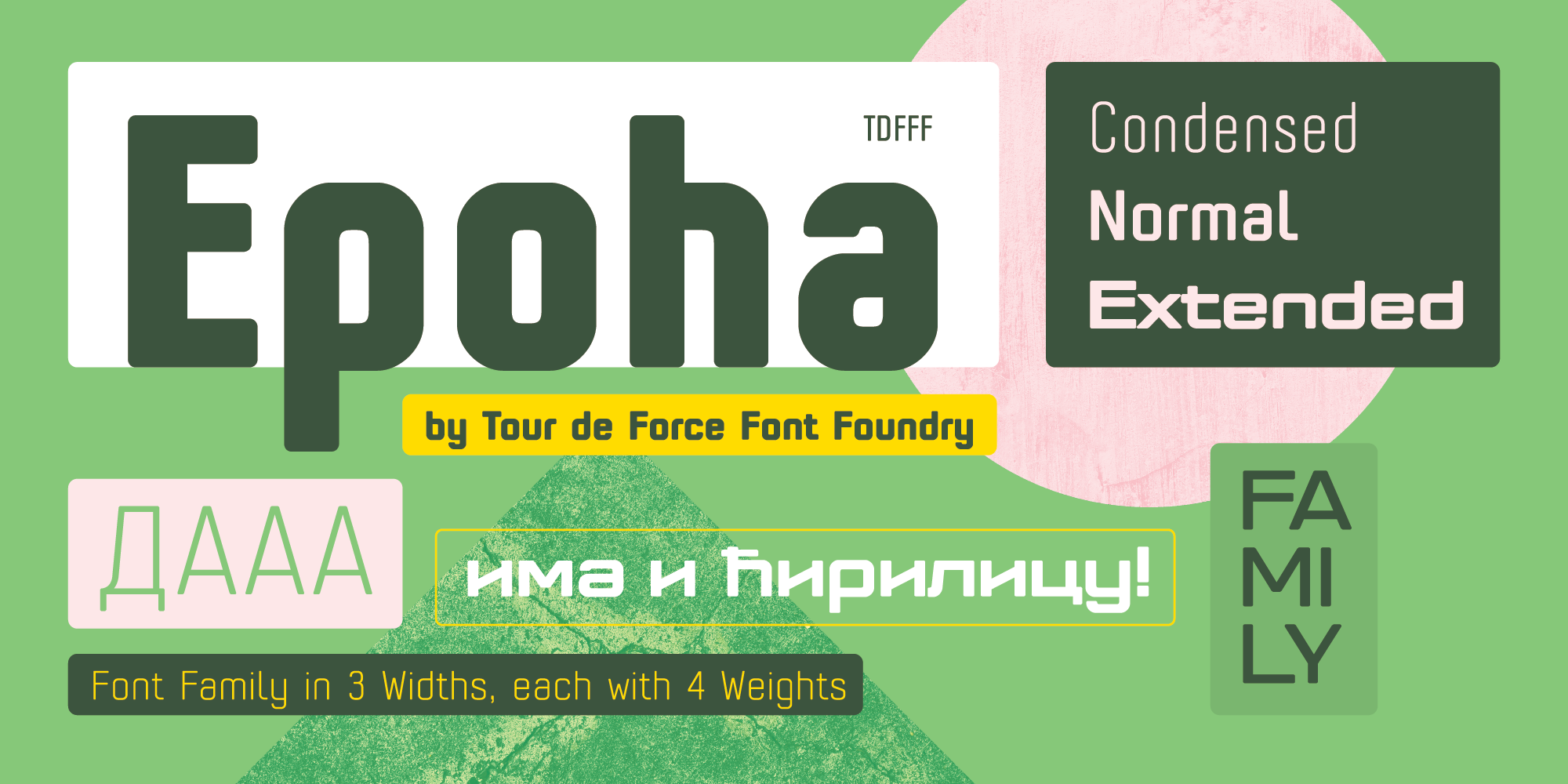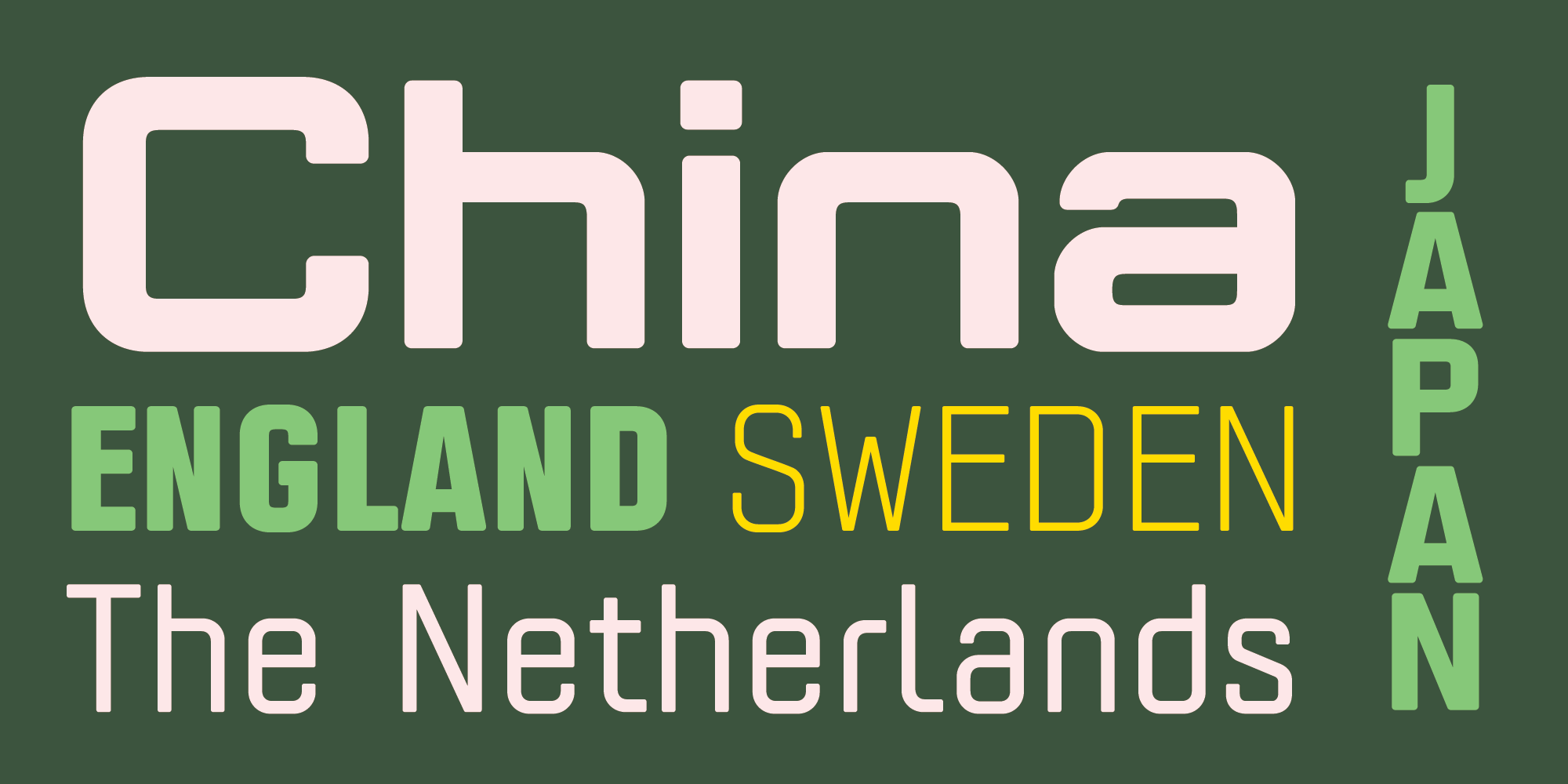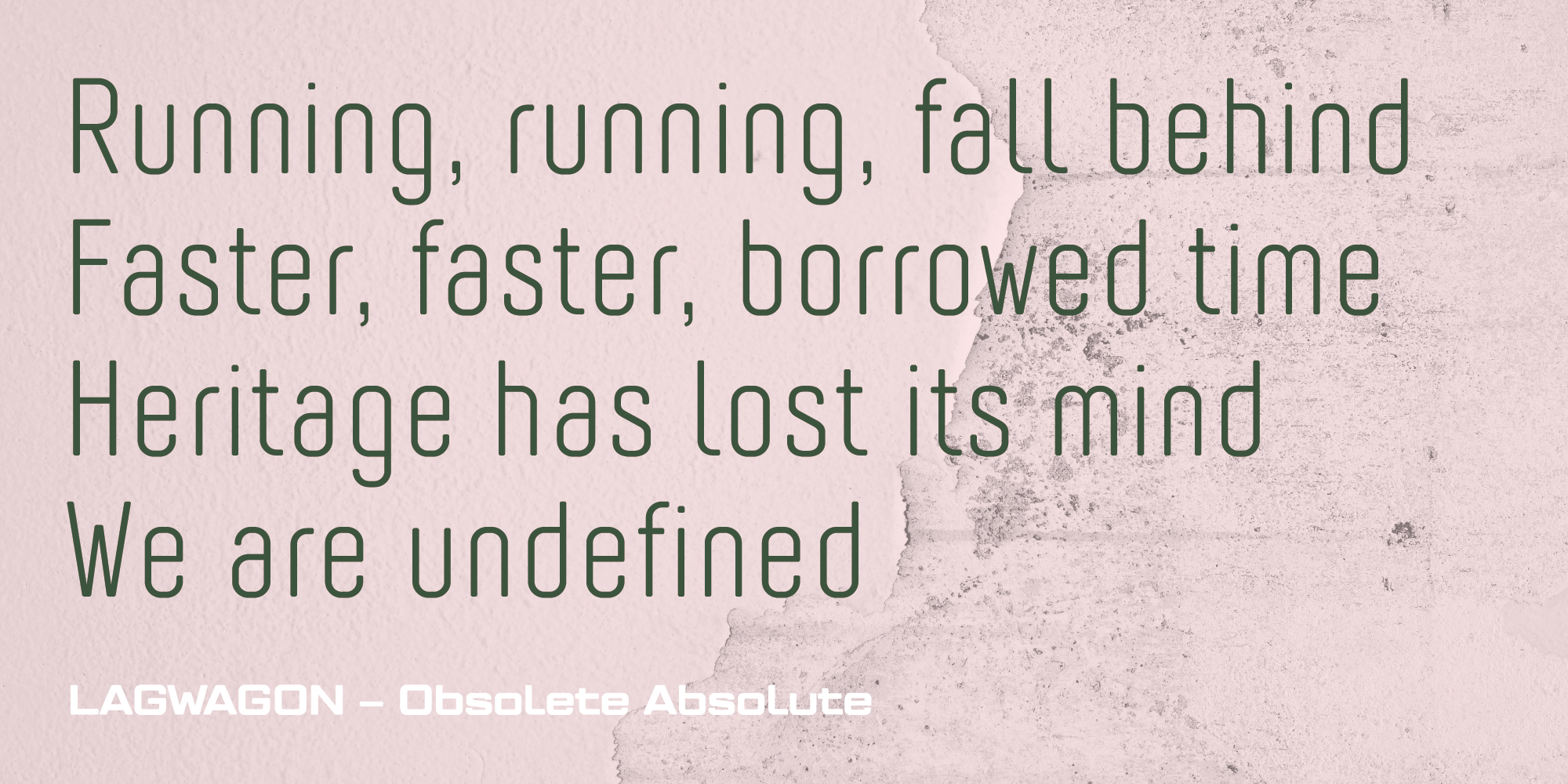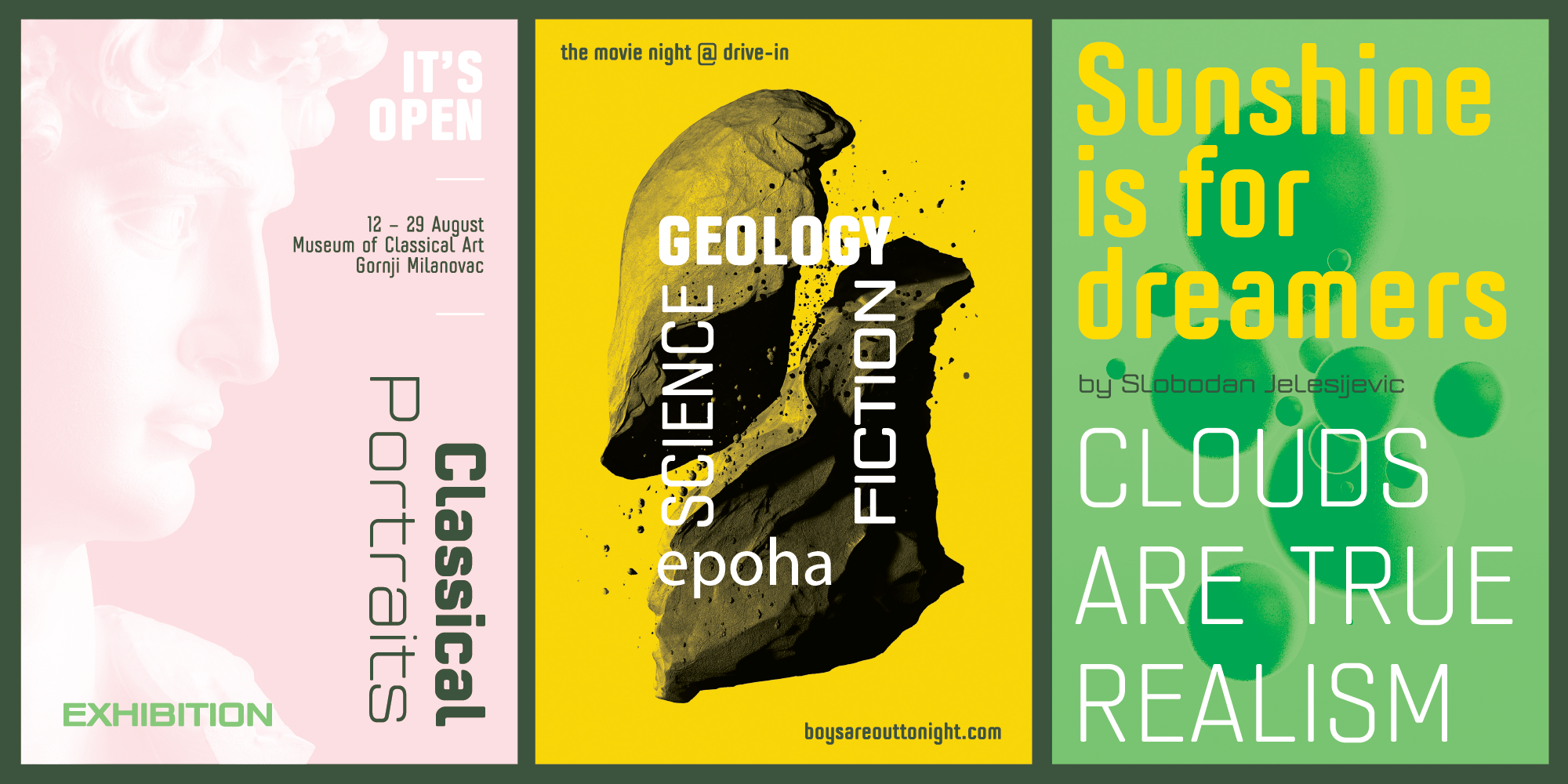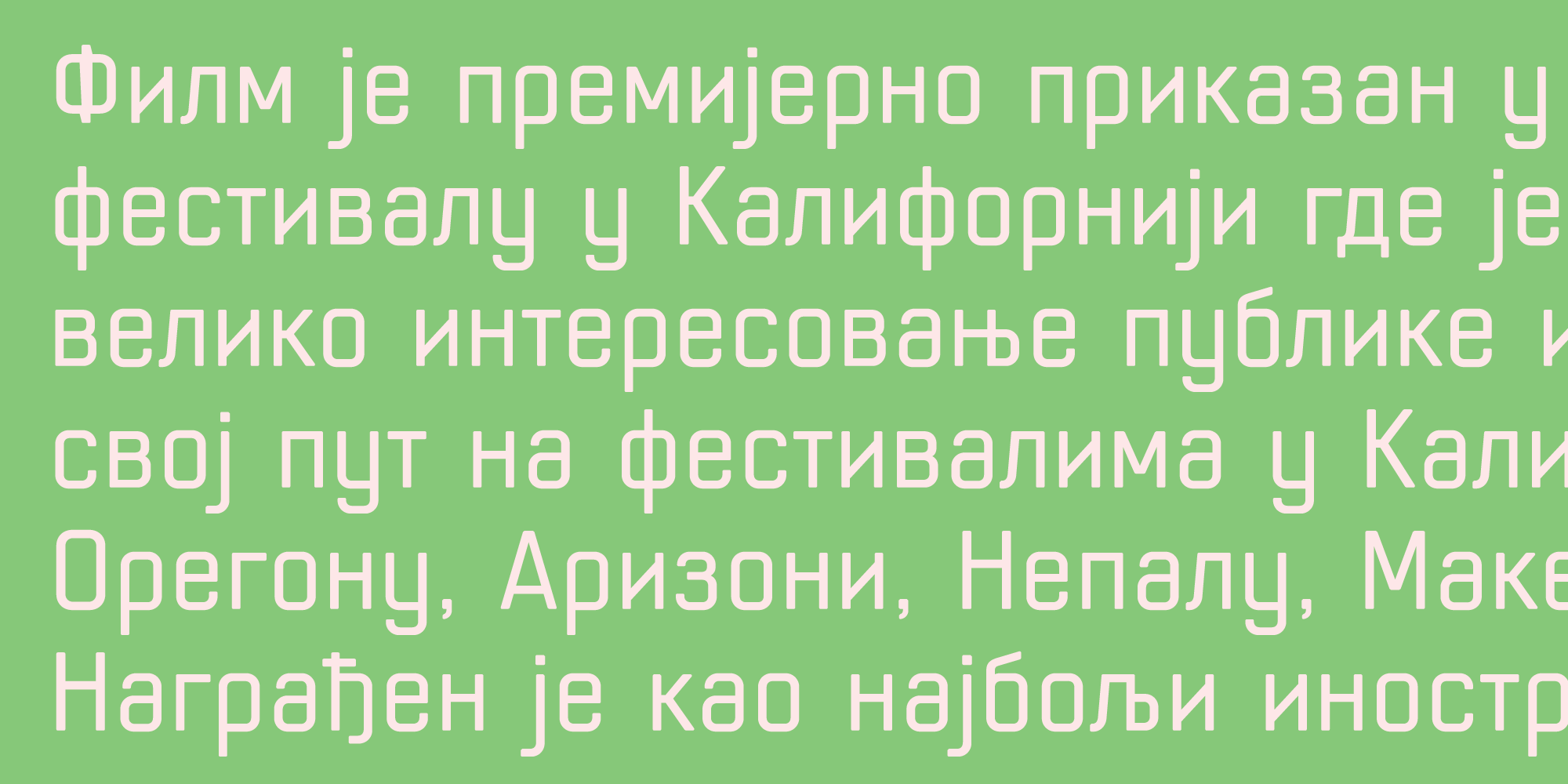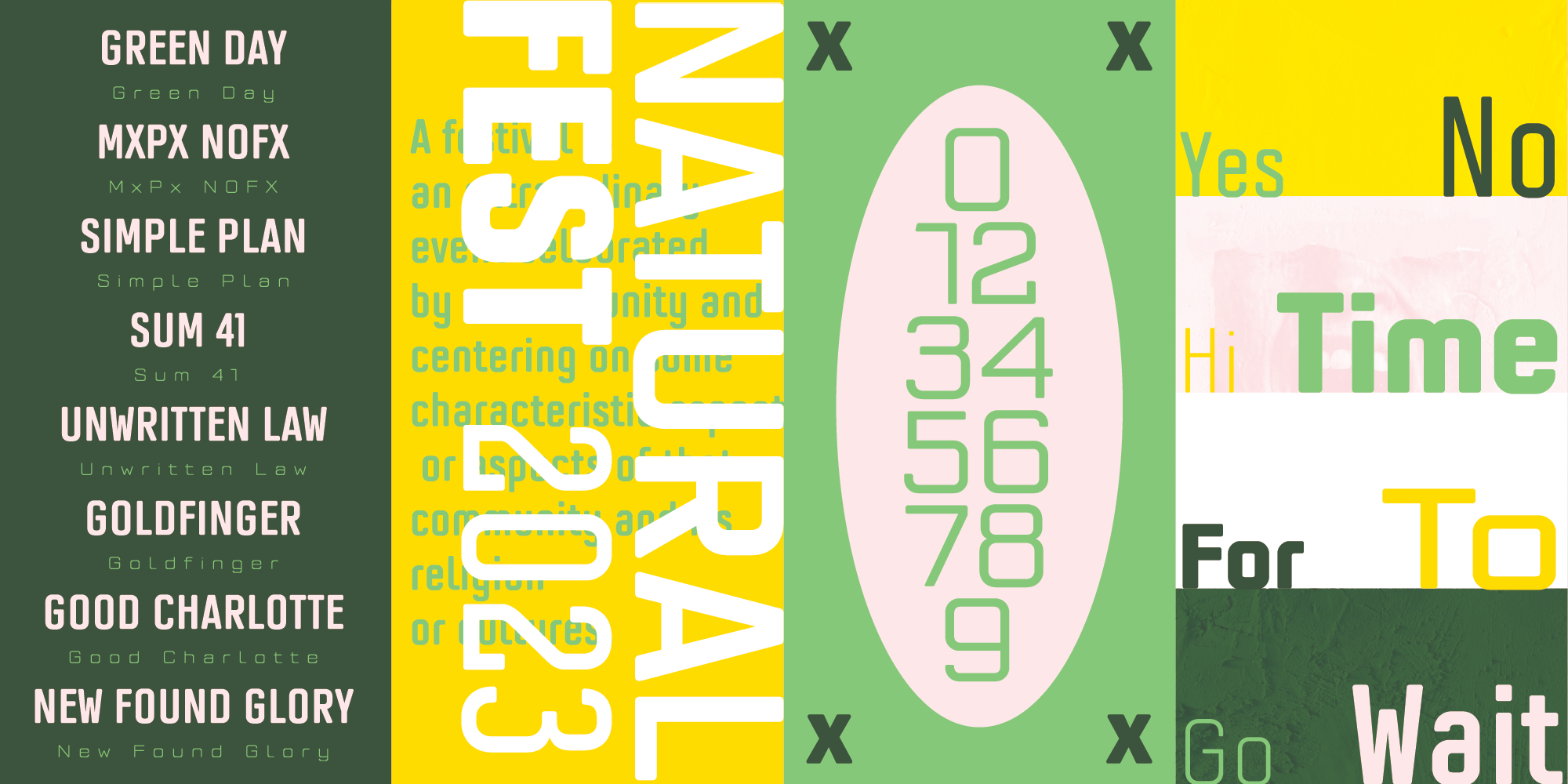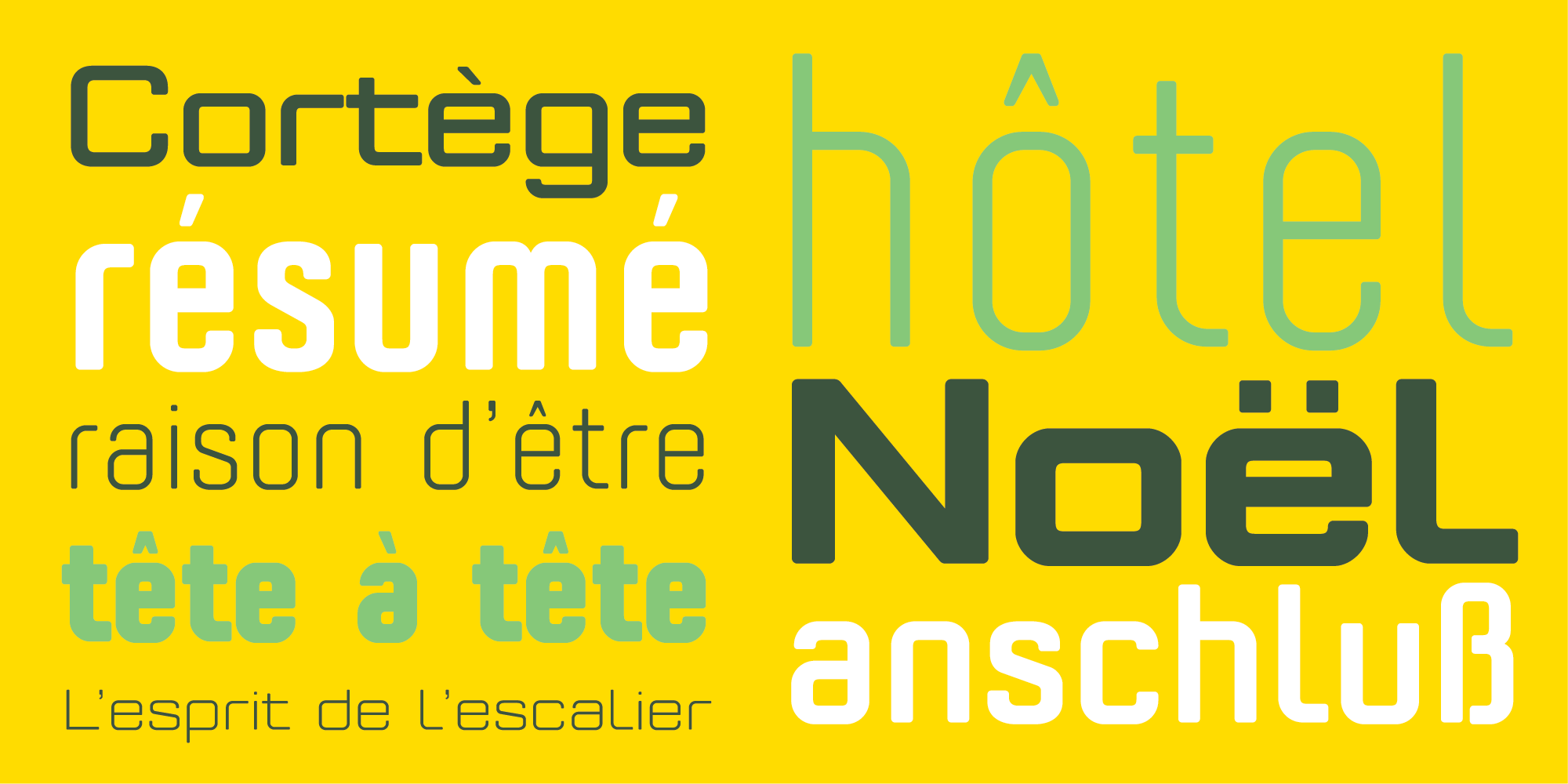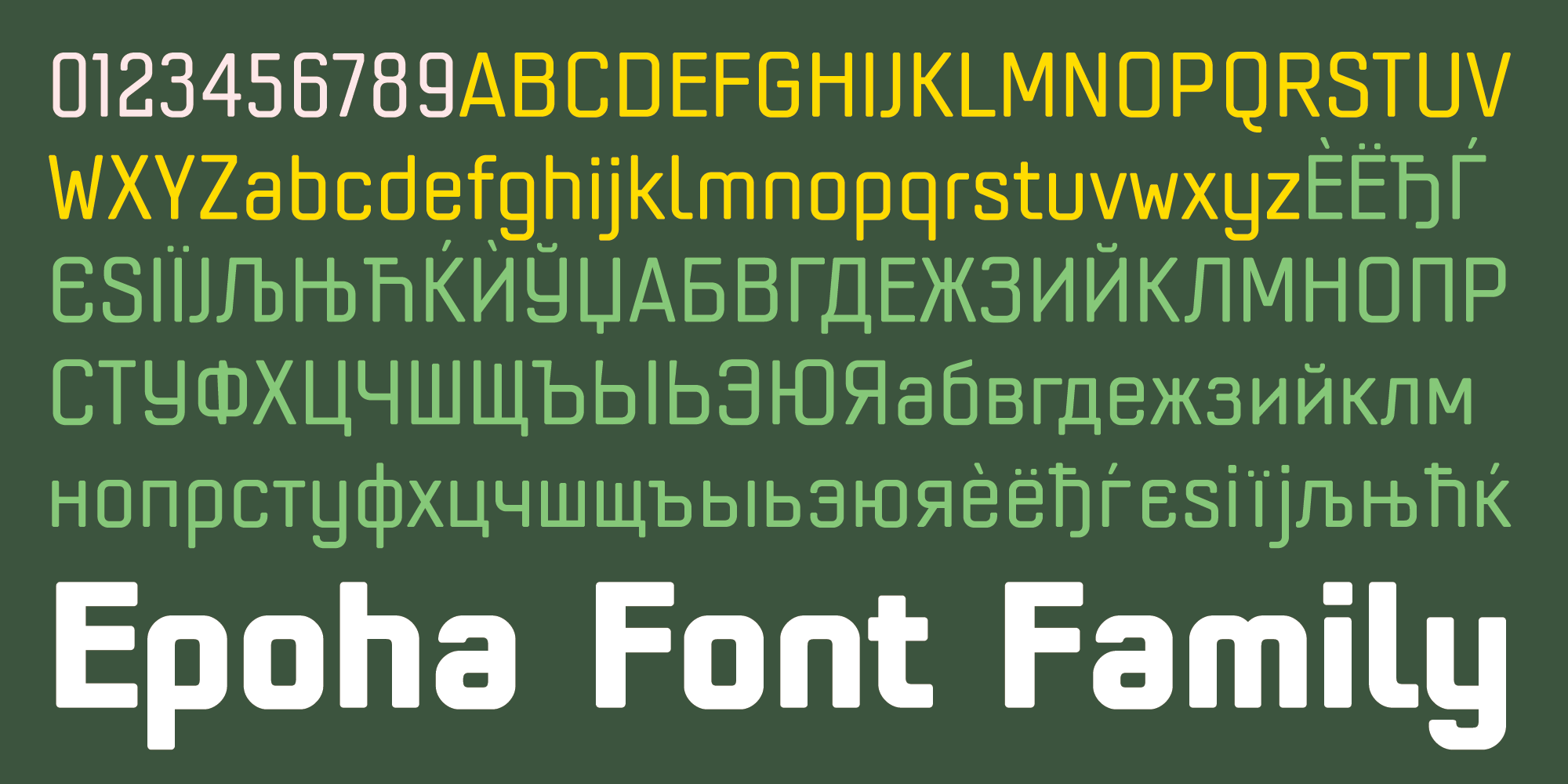
Epoha is geometrical sans-serif font family available in 3 widths and 4 weights.
With rounded edges that soften design of the letters, Epoha delivers functionality on the first place – it is neutral, versatile, legible and easily applicable for any project.
Equipped with extended Latin and Cyrillic language coverages, Epoha in widths and weights diversity allows use of typographical contrast in editorial use or branding, to package design, posters and websites.